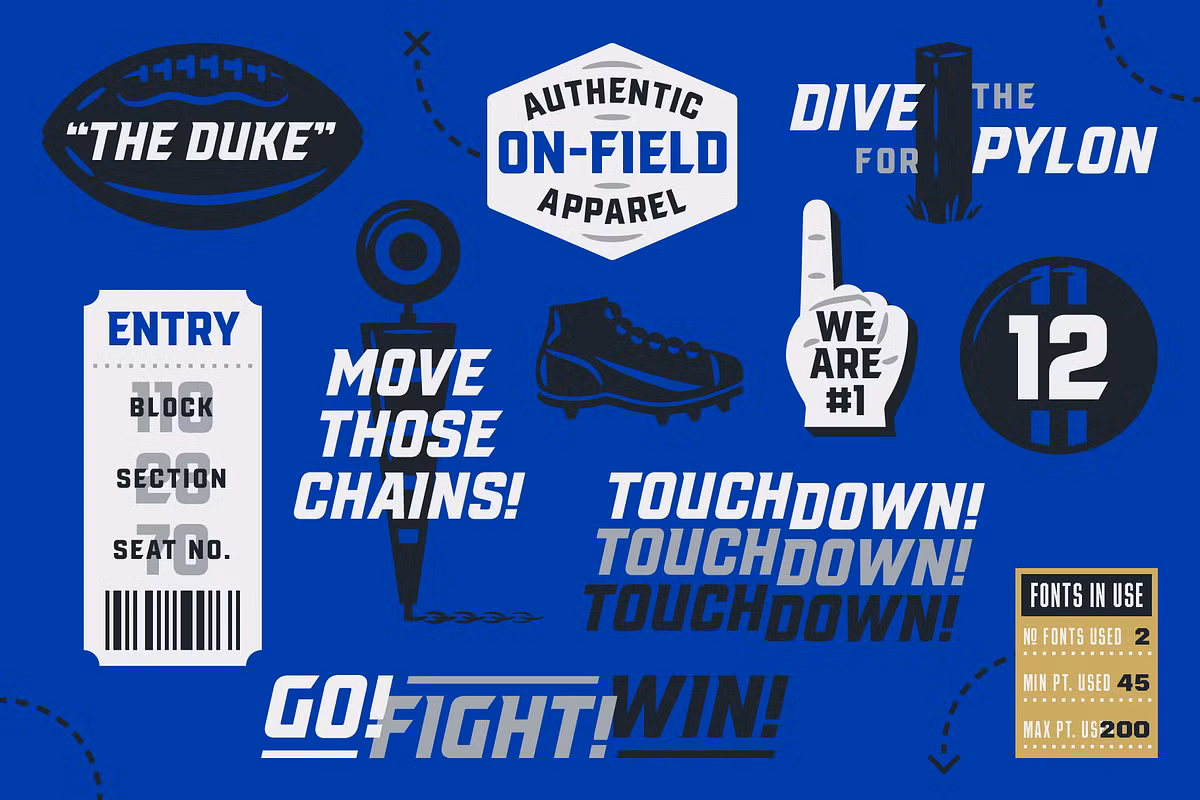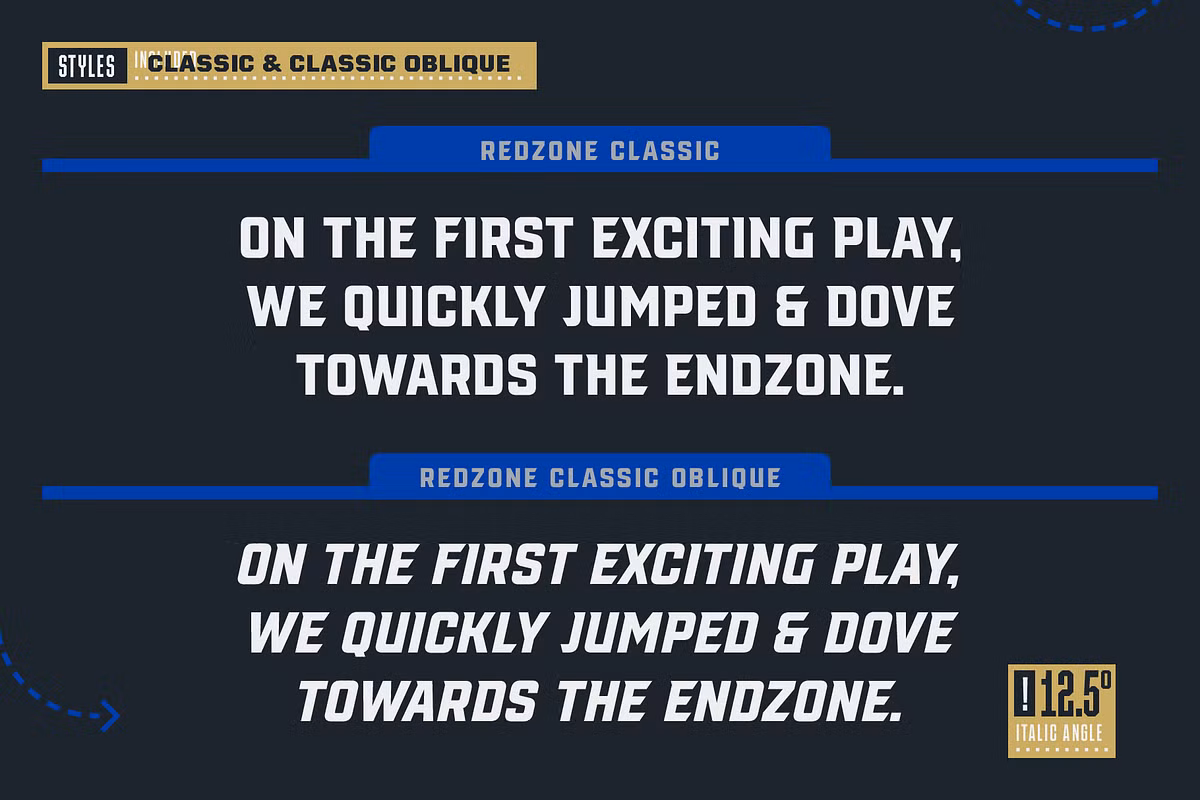
VT Redzone Classic: Aggressive Display Typeface with Expanded Features
The VT Redzone Classic is a display font that stands out with a look. The VT Redzone Classic first came out in October 2017. Designer CJ Zilligen created the VT Redzone Classic as his font. The VT Redzone Classic has a sharp square sans shape. The VT Redzone Classic is built to make an impact, in any project. I have used the VT Redzone Classic in my work and the VT Redzone Classic always catches the eye. The VT Redzone Classic is a choice, for anyone who wants to add energy and attitude to their typography.
The VT Redzone Classic design has terminals. Spur serifs that give the VT Redzone Classic a fierce look. The VT Redzone Classic is a titlecase display typeface. The VT Redzone Classic works well for headlines, logos and other places that need impact. The VT Redzone Classic’s angular forms and aggressive style give the VT Redzone Classic an edge, in design. I saw the VT Redzone Classic get a redesign in May 2020. The redesign added about 200 symbols to the character set. The VT Redzone Classic now looks more flexible. Can be used with languages. The VT Redzone Classic is now a choice, for projects, around the world.
The VT Redzone Classic has a big character set. I like that the VT Redzone Classic added 200 characters in the 2020 update. The VT Redzone Classic now supports languages and more special characters. The VT Redzone Classic gives designers options for their work. The character set includes letters, lowercase letters, numerals and many punctuation marks. The character set gives designers the tools they need to make text layouts. When I work on a design the VT Redzone Classic lets me choose from a range of letters, numbers and symbols so I can shape the text how I want.
The expanded character set makes VT Redzone Classic a reliable choice, for projects. For many branding campaigns. In my experience VT Redzone Classic works well when you are designing materials or digital content. VT Redzone Classic is versatile. VT Redzone Classic lets you communicate clearly with an audience.
The VT Redzone Classic works in places where big letters matter. I have used the VT Redzone Classic in settings and the VT Redzone Classic always performed well. Here are some ideal use cases:
- Branding and Logo Design: I find that the aggressive look of the VT Redzone Classic makes the VT Redzone Classic a good fit, for brands that want to show strength and confidence. Brands that need a feel can use the VT Redzone Classic.
- Posters and Flyers: Posters and Flyers have a look that catches the eye. I use Posters and Flyers for the event promotions and the advertising materials.
- Web Design: The font has traits. I find the font works well for headlines and navigation, on websites. I notice the font makes the user experience lively.
- Merchandise and Apparel: I think the typeface has a vibe. The typeface works well for the clothing designs in the streetwear and the youth oriented brands.
In each scenario the VT Redzone Classic improves the story. The VT Redzone Classic makes sure your message hits the audience.
This section will explore how to appropriately pair the VT Redzone Classic with other typefaces for optimal design impact.